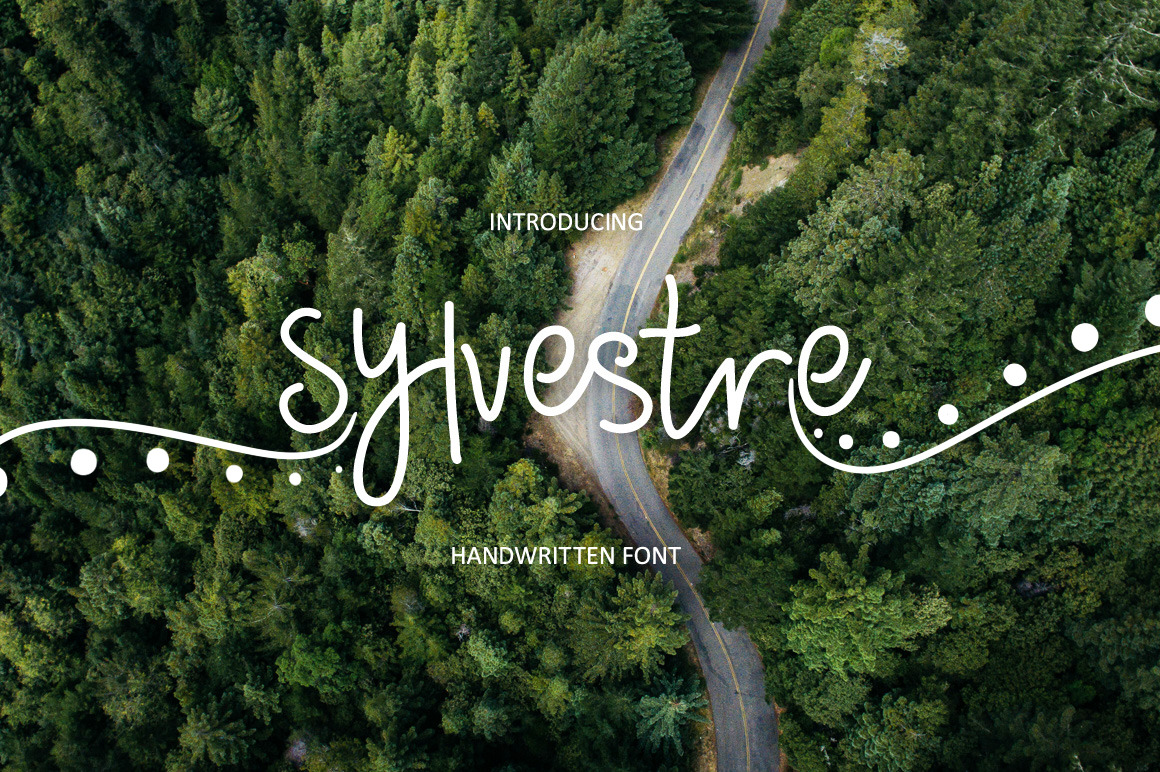
Sylvestre nature handwritten font
Good afternoon, lunch and evening! :) I want to present you my new font SYLVESTRE. This script is bold and interesting, like nature, which served as inspiration for its creation.